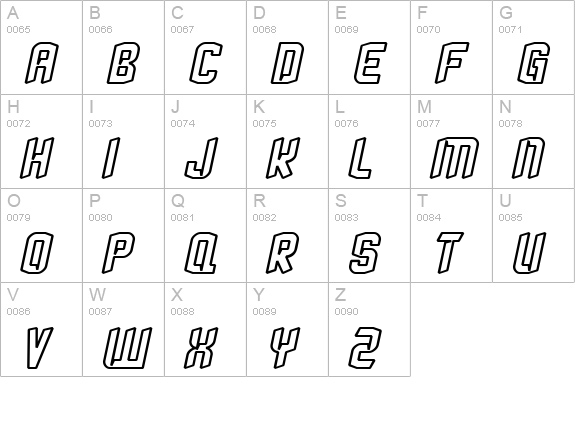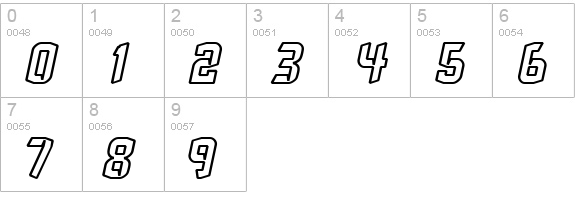
StrangePhenomena outlined Font Details
Introducing StrangePhenomena outlined font, a captivating and unique typeface that will add a touch of mystery and intrigue to your design projects. This otherworldly font features intricate outlines and a striking appearance that is sure to make a statement. With StrangePhenomena, you can create eye-catching headlines, posters, and more with ease. Whether you're working on a sci-fi project, a fantasy-themed design, or simply want to add a touch of the unusual to your work, this font is the perfect choice. Best of all, StrangePhenomena is freely available to download at FontsMarket.com. So go ahead and unleash your creativity with this fascinating and enigmatic font today!